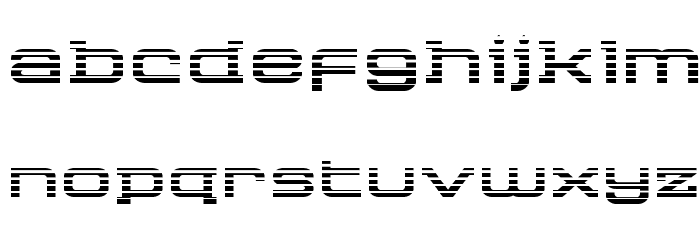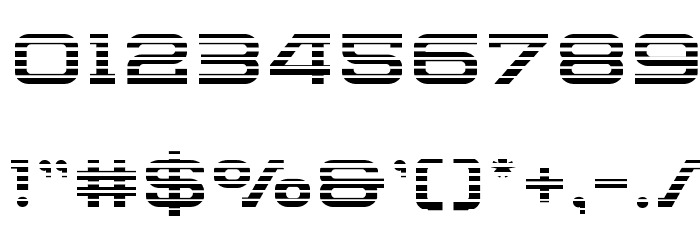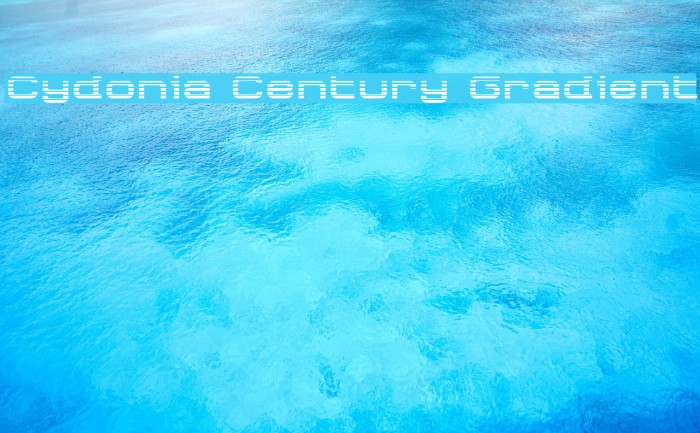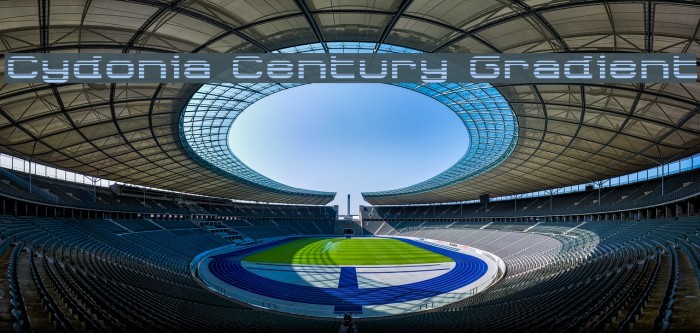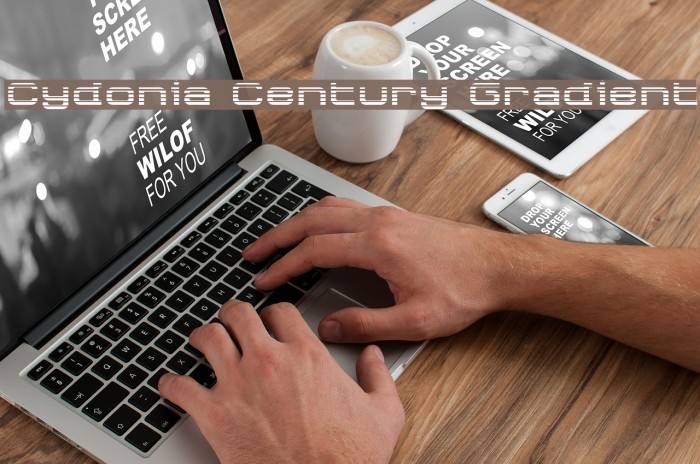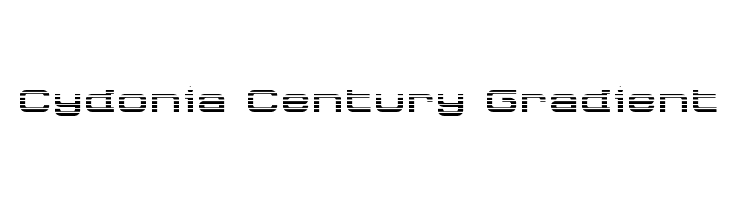
Cydonia Century Gradient Font
This font features a unique, futuristic design characterized by its segmented, gradient-like appearance. Each character is composed of horizontal lines that create a visually striking effect, reminiscent of digital or electronic displays. The uppercase and lowercase letters maintain a consistent style, with clean, geometric shapes that enhance readability despite the decorative elements. The numerals and special characters follow the same design principles, ensuring uniformity across all glyphs. This font's distinct style makes it suitable for projects that require a modern, tech-inspired aesthetic.
A futuristic, segmented font with a digital display-like appearance.
- Font: Cydonia Century Gradient
- Proposed Projects: Ideal for tech branding, digital interfaces, video game titles, and futuristic-themed designs.
- Overall Style: Futuristic
- Use Case: Headlines, Logos, Digital interfaces